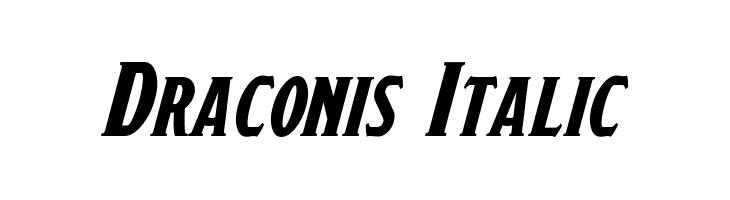
( www.southype.com )
A bold, geometric font with alternating outlined and filled uppercase letters.
( Fonts by Dieter Steffmann )
A bold, decorative font with a strong contour outline and three-dimensional appearance.
( Juan Casco - www.juancasco.net/ )
A bold, gothic-style stencil font with sharp angles and a dramatic presence.
( Fonts by Ben Nathan )
A bold, geometric font with a modern, digital aesthetic.
A bold, condensed, semi-italic font with a modern and dynamic style.
A bold, playful handwritten font with smooth, rounded edges.
( Typodermic Fonts - Ray Larabie - www.typodermicfonts.com/ )
A bold, italicized font with strong strokes and a dynamic, forward-leaning style.